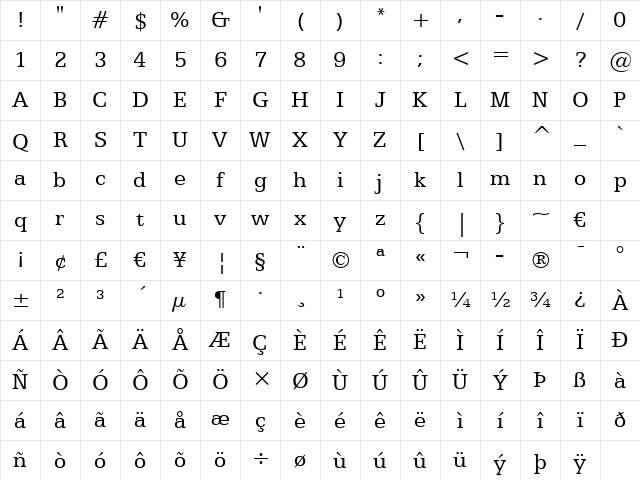
Complete Egyptian505 BT Roman glyph index. Displaying only characters natively supported by Egyptian505 BT Roman font.
Egyptian505 BT features prominent, blocky serifs that give it a confident, grounded presence - equally at home in editorial settings and bold branding work.
Pro Tip: Use Egyptian505 BT for headlines and subheadings where its slab serifs can make an impression. It also holds up well in mid-size body copy thanks to its sturdy construction.